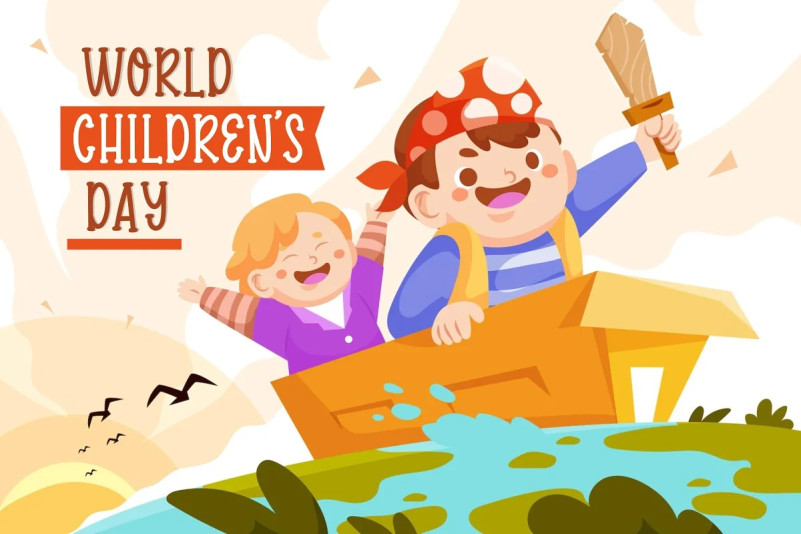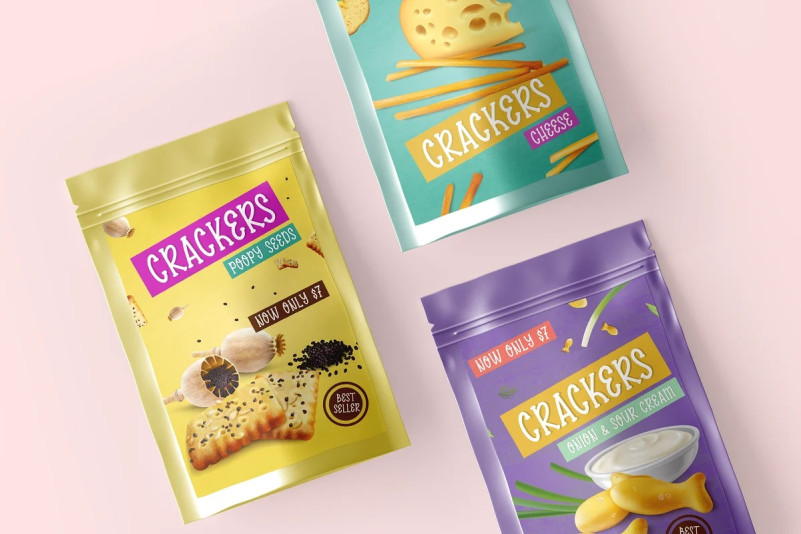
Farmwish Font
Farmwish Playful Font is perfect for product packaging, branding project, megazine, social media, wedding, or just used to express words above the background.